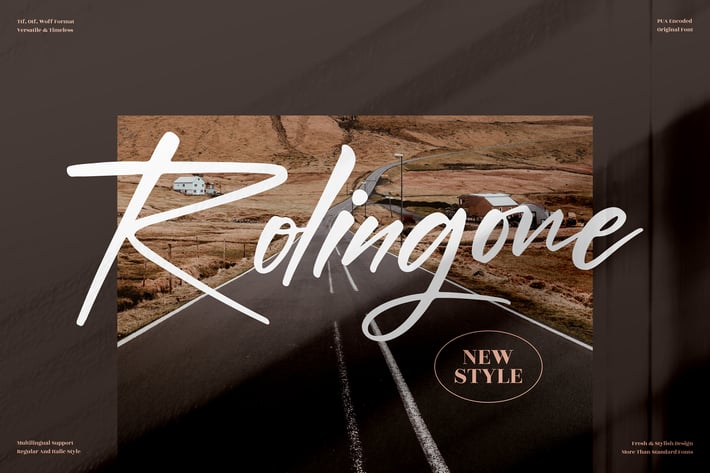
Rolingone Handwritten Font
Rolingone is a stylish handwritten font crafted to bring a natural, expressive feel to your creative projects. Its smooth strokes and modern flow make it perfect for branding, social media posts, quotes, posters, and various aesthetic designs. Whether you're creating digital content or printed materials, Rolingone adds a personal and elegant touch.
Modern handwritten style with smooth natural curves
Great readability for both small and large text
Versatile for branding, social media, and editorial use
Perfect balance of casual and classy handwritten feel
Branding & logos
Social media content
Quotes & typography posters
Invitations & greeting cards
Business cards & packaging
Lifestyle and fashion branding
Expressive strokes for designs that speak with personality.
Modern handwritten style with smooth natural curves
Great readability for both small and large text
Versatile for branding, social media, and editorial use
Perfect balance of casual and classy handwritten feel
Branding & logos
Social media content
Quotes & typography posters
Invitations & greeting cards
Business cards & packaging
Lifestyle and fashion branding
Expressive strokes for designs that speak with personality.